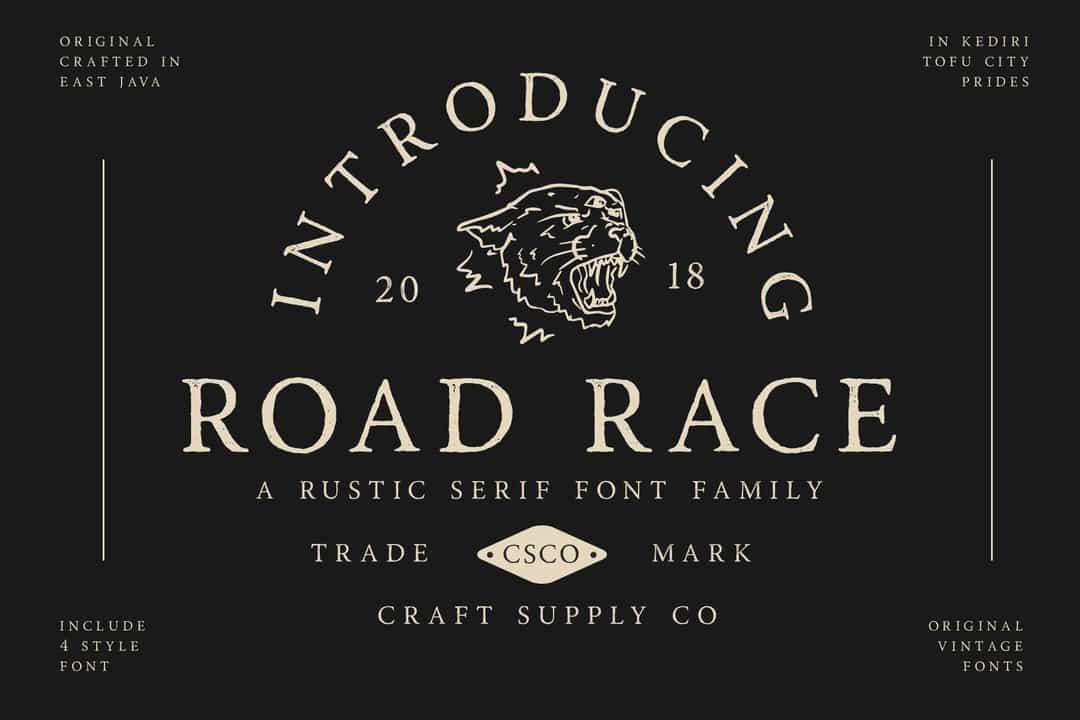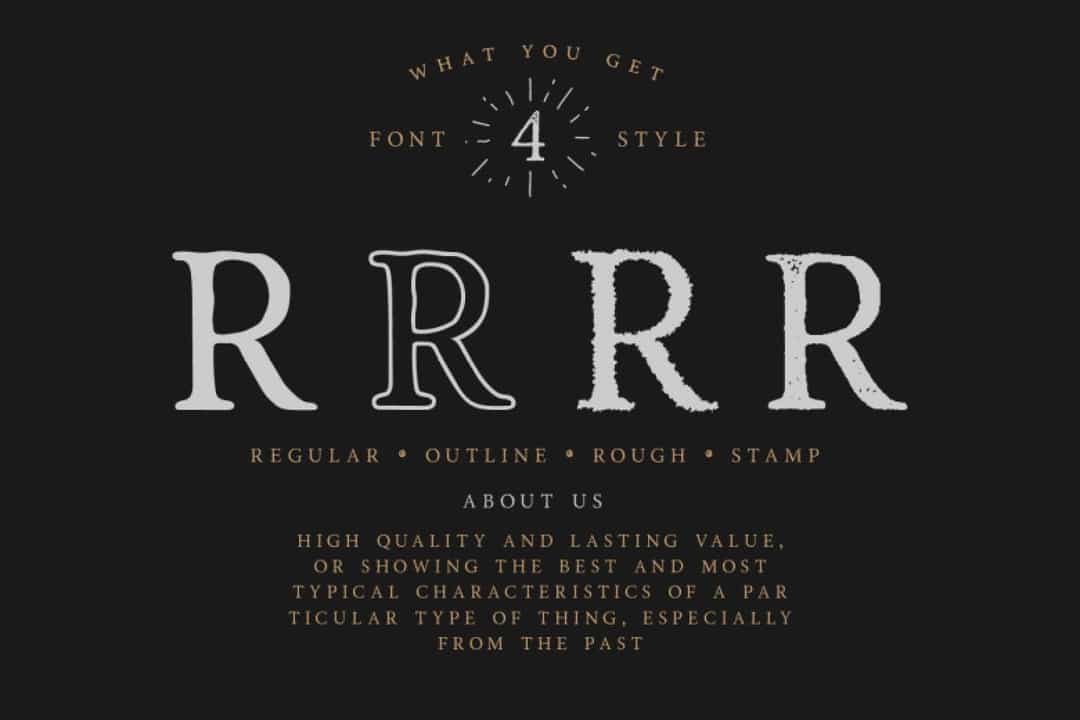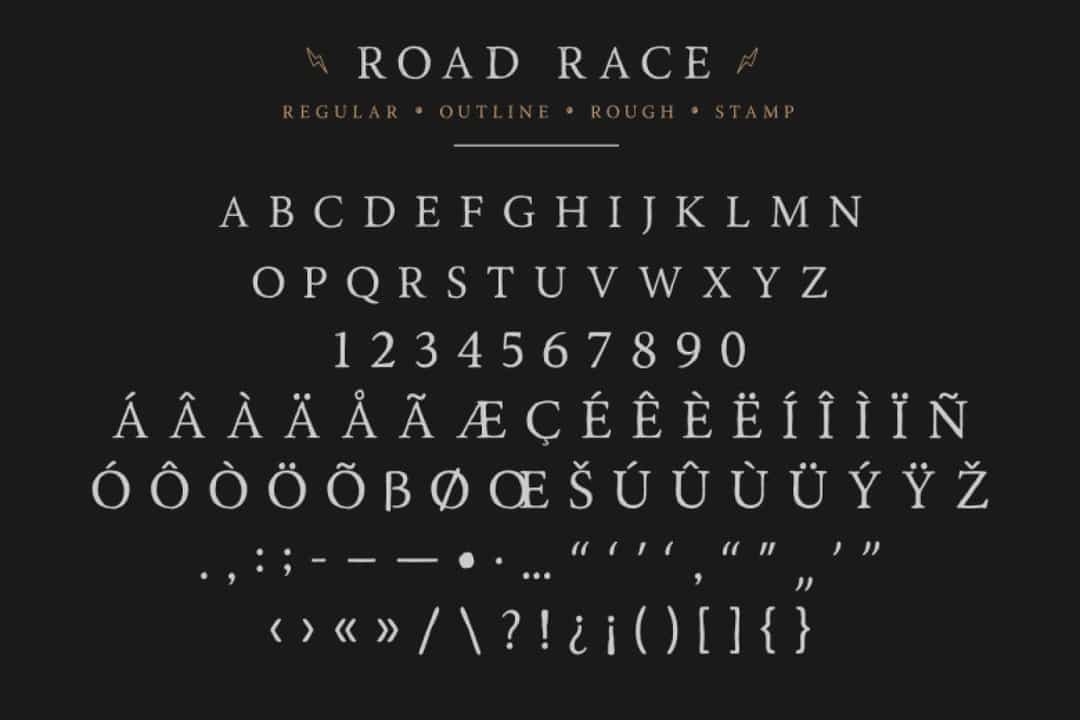
Road Race Font Family Plus Extras includes four distinct font styles for designing printed materials of any kind. Simply unleash your creativity with a few graphics from Extras, and your project will look more vibrant than ever with Road Race font!